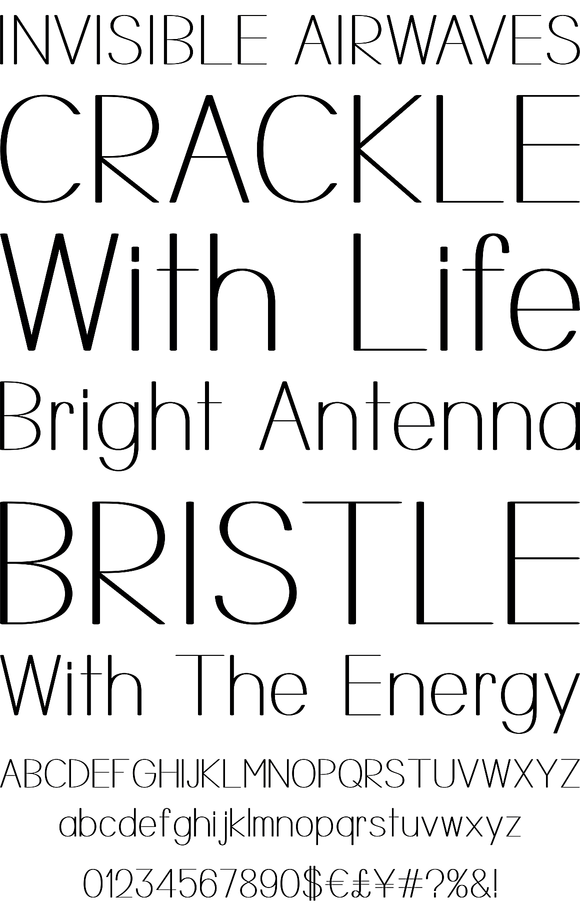
Mankind
Foundry: Taechit Jiropaskosol
Mankind is an opentype font comprised of 5 weights, producing a well priced and flexible font for the right project. While projecting a very clean image, Mankind still has a organic feel, with almost touches of a hand drawn feeling to some of the angles and design.